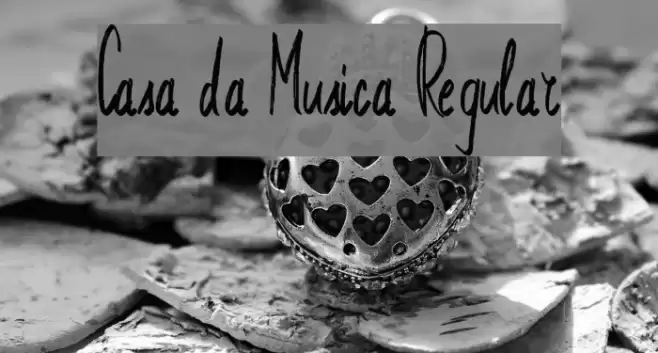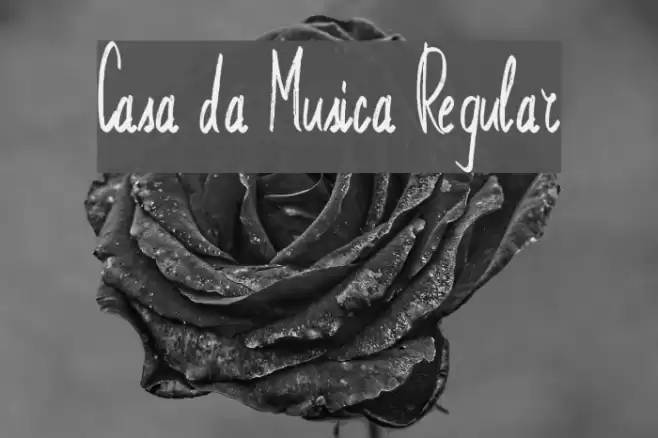
Casa da Musica Regular Font
Casa da Musica Regular Description
This font exhibits a unique, hand-drawn style that combines elements of both casual and artistic expression. The uppercase letters are tall and narrow, with a slightly uneven baseline that adds to the informal, sketch-like appearance. The lowercase letters maintain a similar aesthetic, with elongated ascenders and descenders that contribute to the font's dynamic look. The strokes are irregular, giving a sense of movement and spontaneity. This font is perfect for projects that require a personal touch or a creative flair, such as artistic posters, invitations, or branding materials that aim to convey individuality and creativity.
A hand-drawn, artistic font with a casual and dynamic style from Handwritten fonts.
- Proposed Projects: Ideal for artistic posters, creative invitations, and unique branding materials.
- Overall Style: Artistic, Casual
- Use Case: Headlines, Artistic projects, Branding